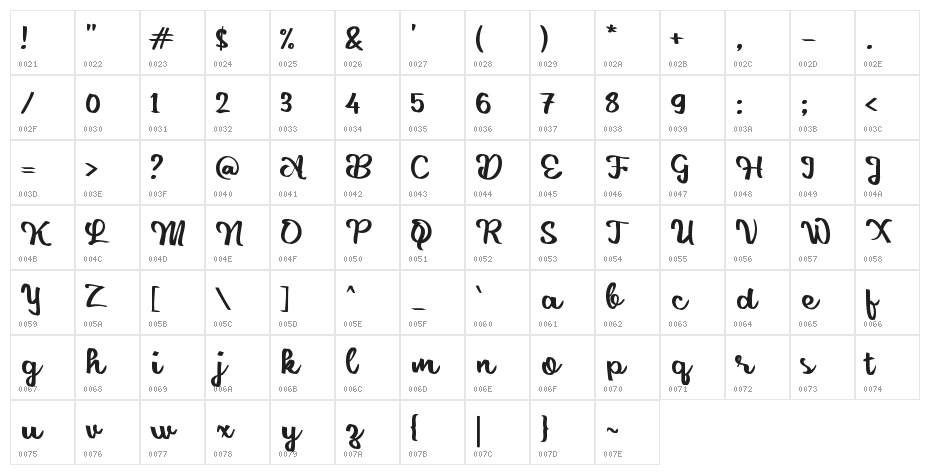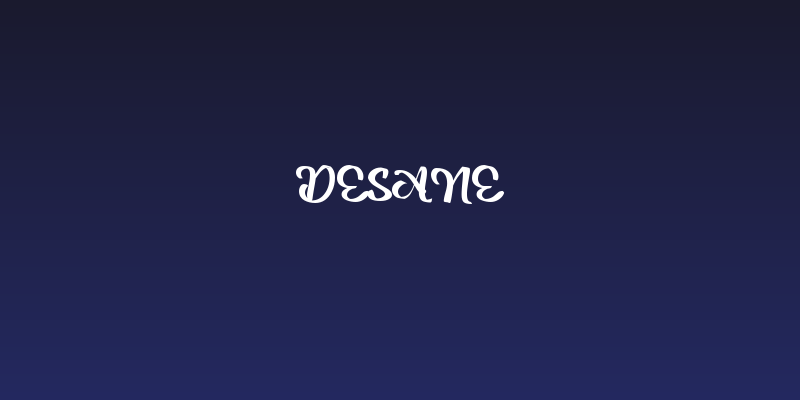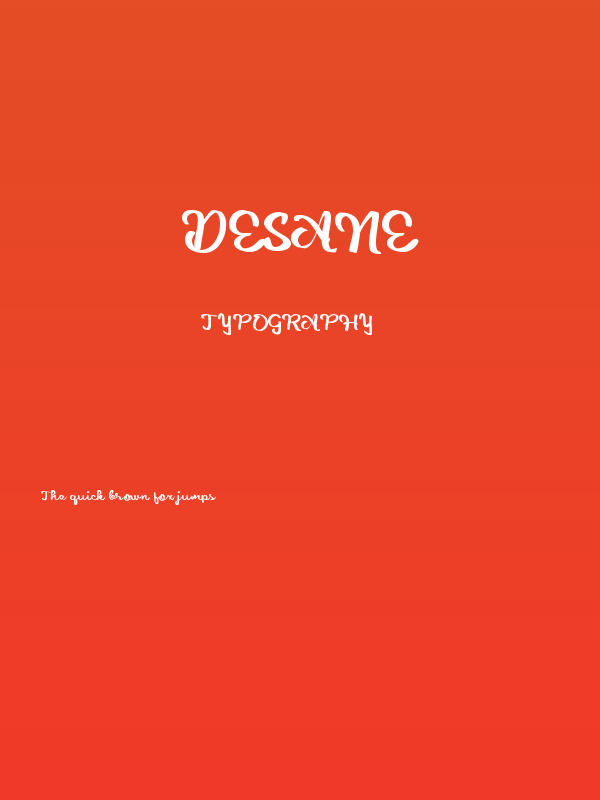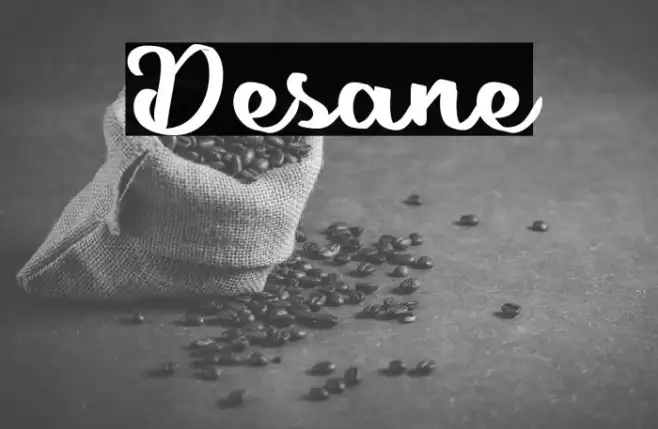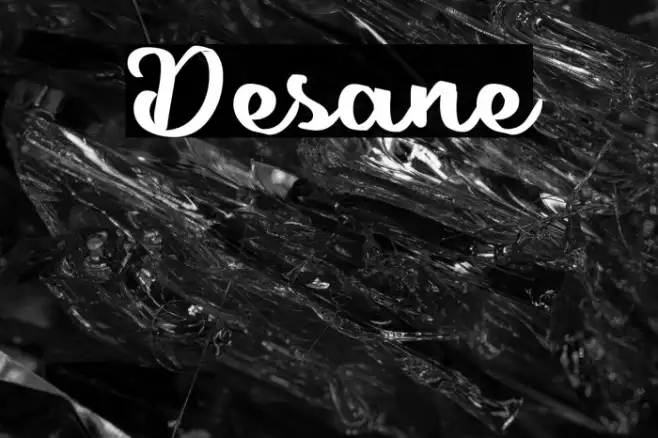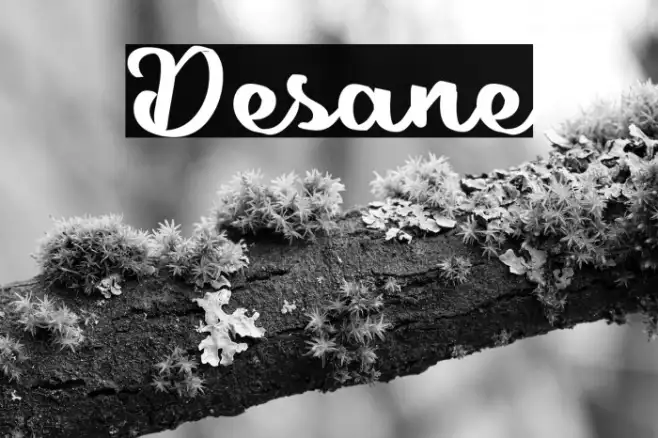
Desane Font
Desane Description
This font features a bold and expressive script style with a playful and dynamic appearance. The characters are connected with smooth, flowing strokes, creating a sense of movement and energy. The uppercase letters are slightly more structured, while the lowercase letters exhibit a more casual, handwritten feel. The numbers and special characters maintain the same lively style, ensuring consistency across all elements. This font's boldness and unique character make it stand out, perfect for projects that require a touch of personality and flair.